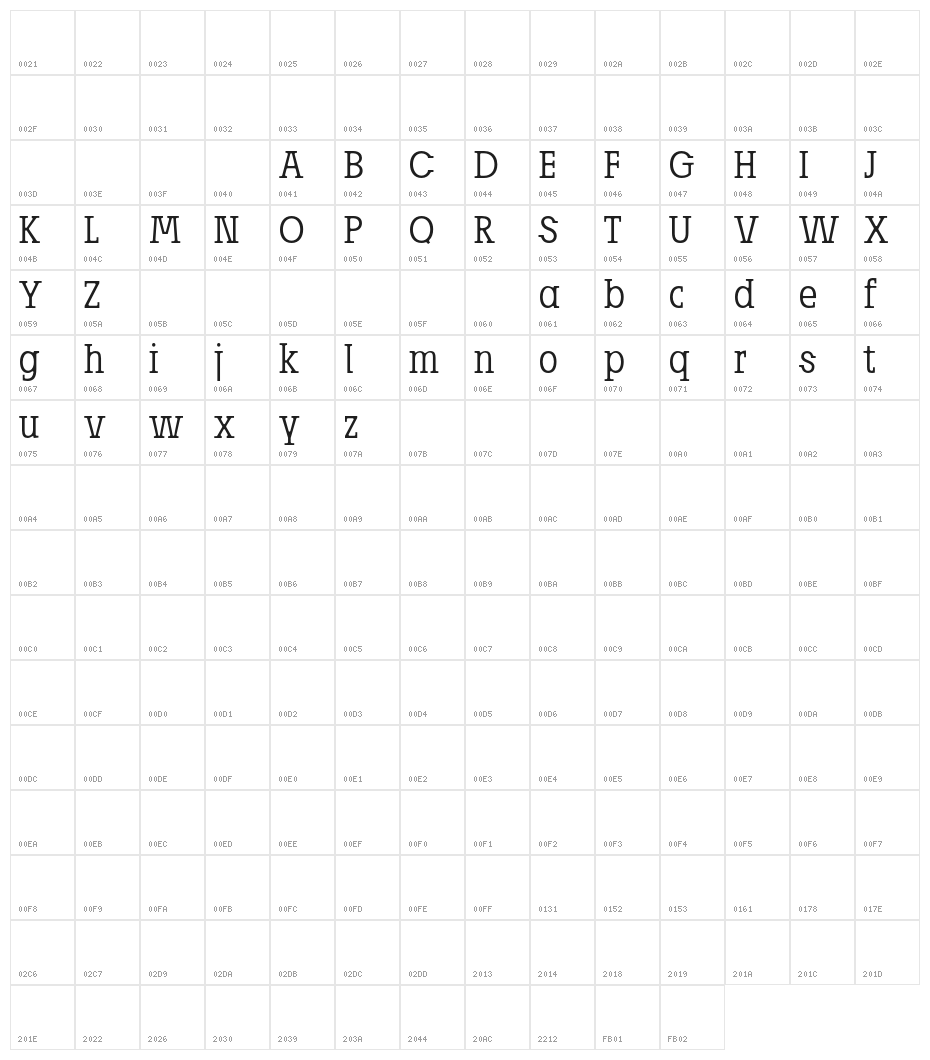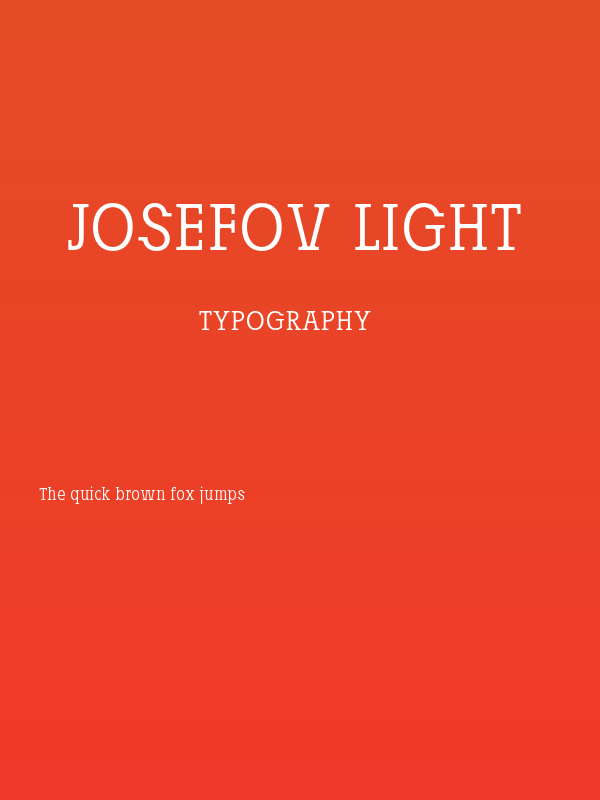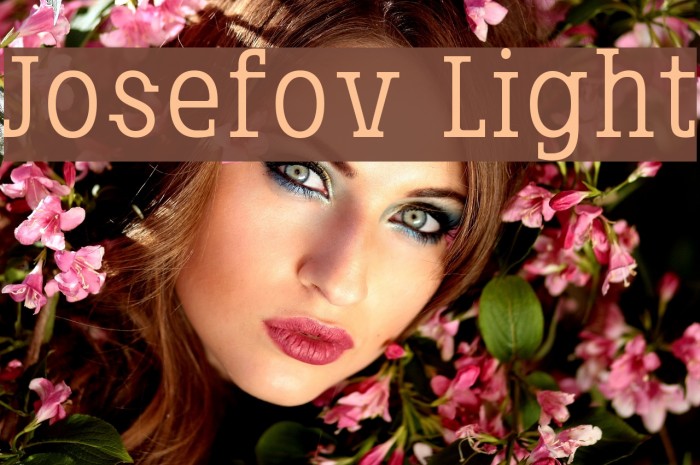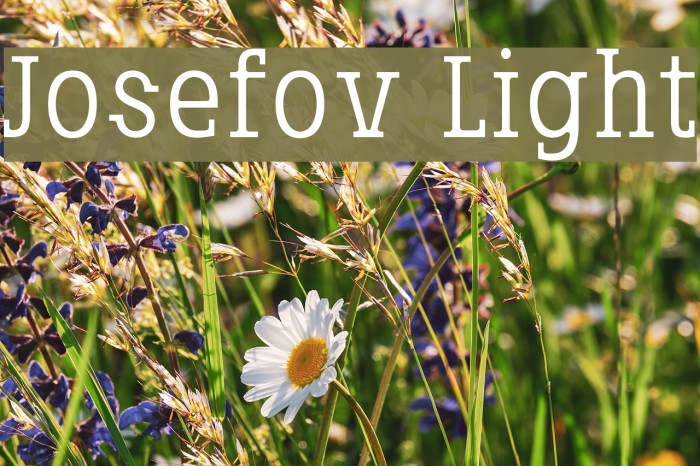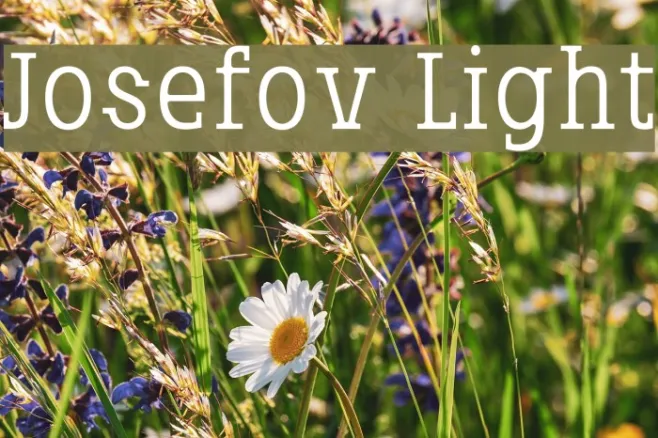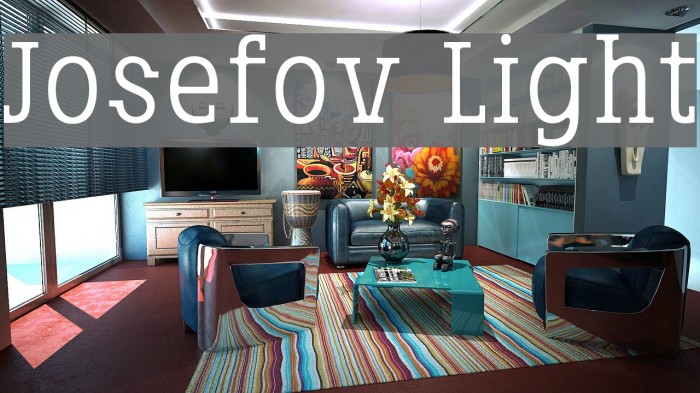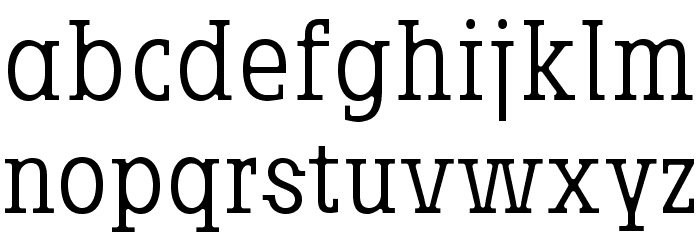
Josefov-Light Font
Josefov-Light Description
This font features a clean and elegant design with a classic serif style. The characters are well-defined with a slight contrast in stroke thickness, giving it a refined and sophisticated appearance. The uppercase letters are bold and commanding, while the lowercase letters maintain a consistent and harmonious flow. The numerals are clear and easy to read, making them suitable for various applications. Special characters are distinct and integrate seamlessly with the overall design. The font's structure is balanced, making it versatile for both digital and print media.
| Proposed Projects | Ideal for editorial design, book covers, formal invitations, and branding projects that require a touch of elegance. |